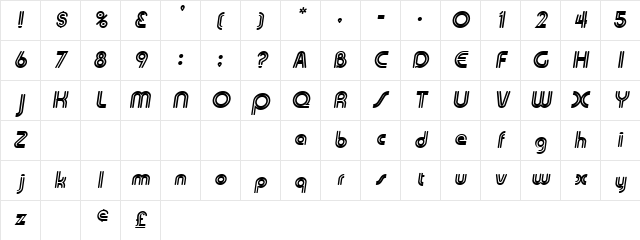
Repartee Oblique
Design Context for Repartee
Repartee is a composed and adaptable typeface that performs quietly and consistently across a wide range of design contexts. The slanted form adds forward momentum and visual energy.